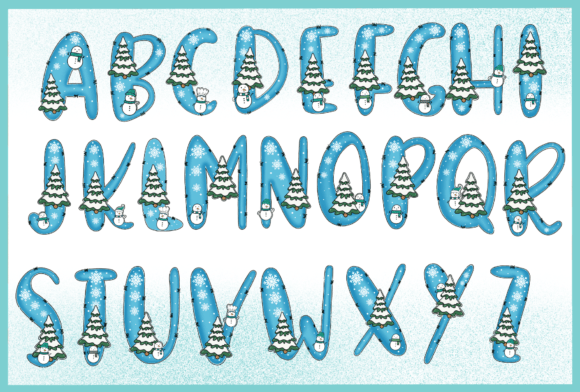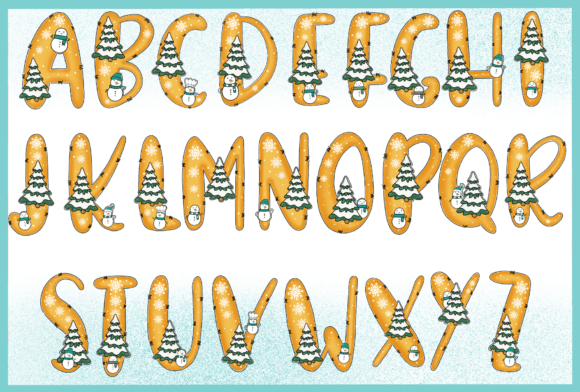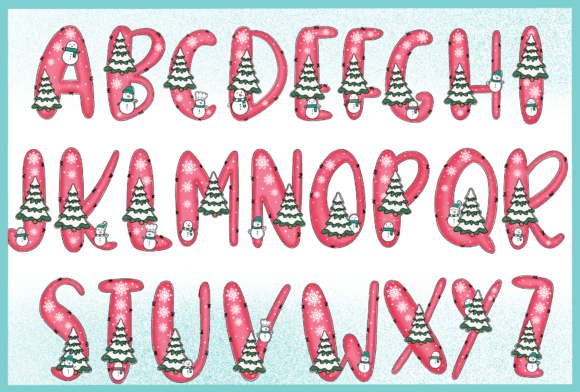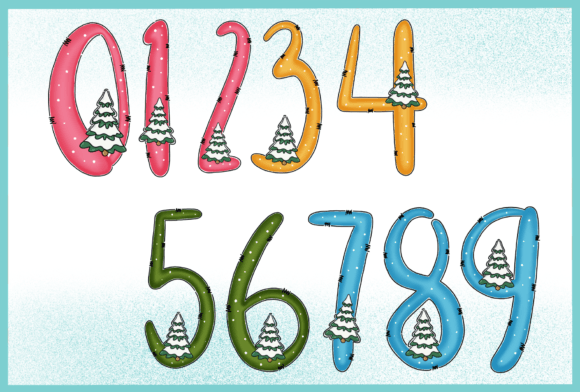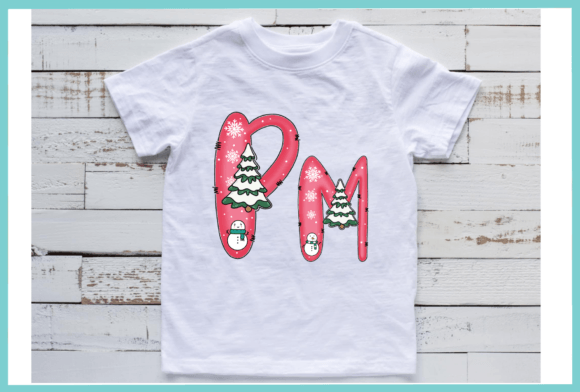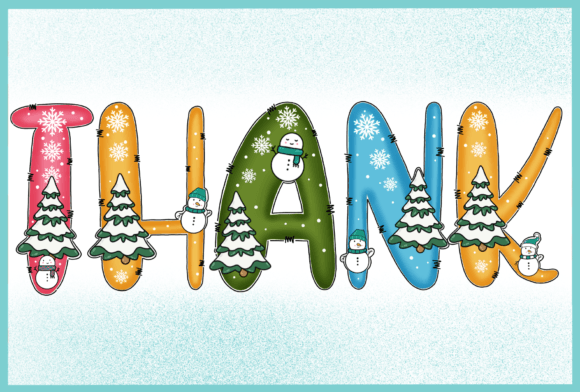
Snowman Cutie Font
Snowman Cutie font is a delightful winter-themed typeface that will warm your heart and add a touch of frosty fun to your designs. Each letter is playfully adorned with adorable snowmen, making it the perfect choice for holiday cards, seasonal posters, and all your winter-themed projects. Embrace the charm of the season with Snowman Cutie!